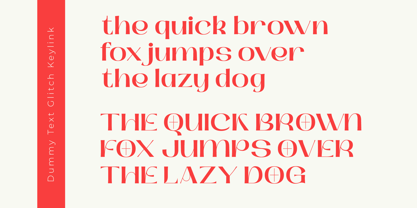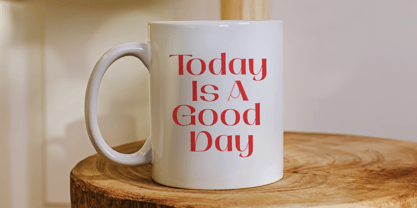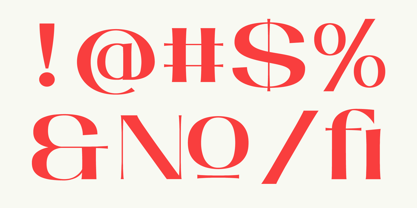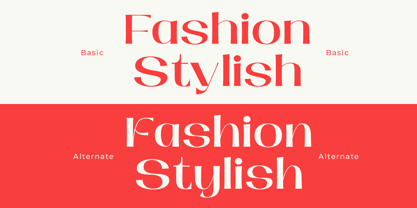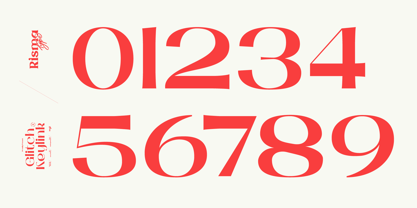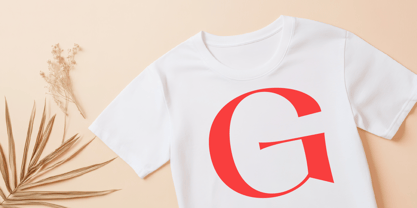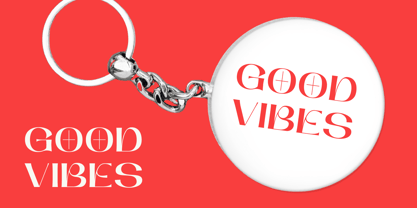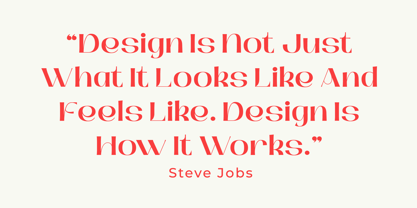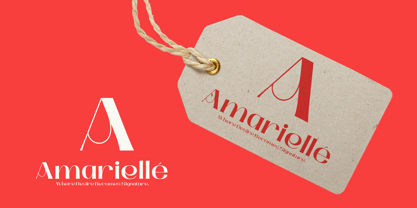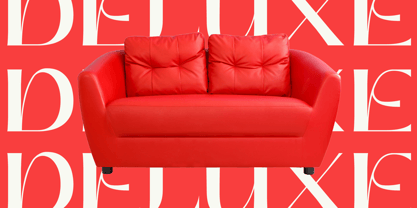
Glitch Keylink
by Risma Type
The Glitch Keylink Font Family was designed by Risma Mulyasari and published by Risma Type. Glitch Keylink contains 2 styles and family package options. More about this family
Glitch Keylink is a luxurious serif display font that exudes elegance and modernity. Perfectly crafted for high-end branding, editorial layouts, fashion projects, and any design work that demands a strong visual impact. Each character showcases high-contrast details, ensuring a sophisticated appearance while maintaining excellent readability for headlines, logos, and posters. This font is ideal for business branding, luxury product packaging, fashion magazines, upscale invitations, and contemporary classic design projects. Glitch Keylink strikes a harmonious balance between opulent style and timeless typography, making it an outstanding choice for designs that aspire to be exclusive and distinctive. Utilize this font to enhance the visual identity of your design endeavors.
Designers: Risma Mulyasari
Foundry: Risma Type